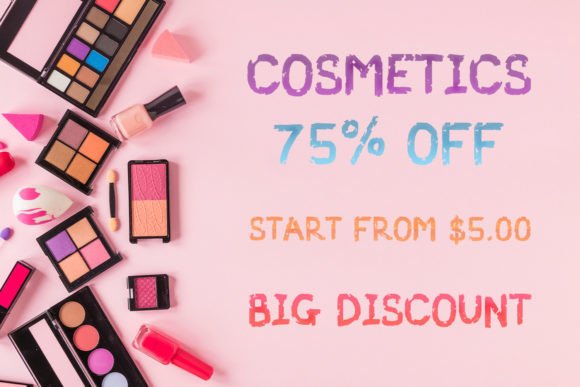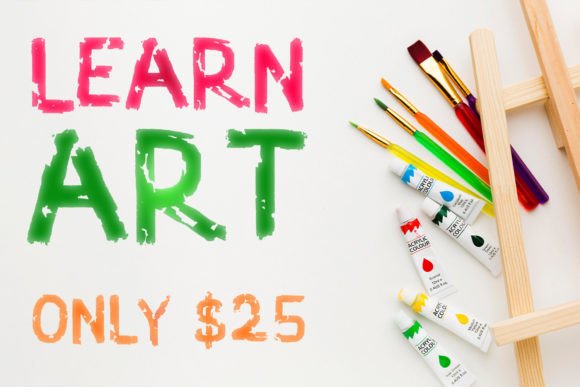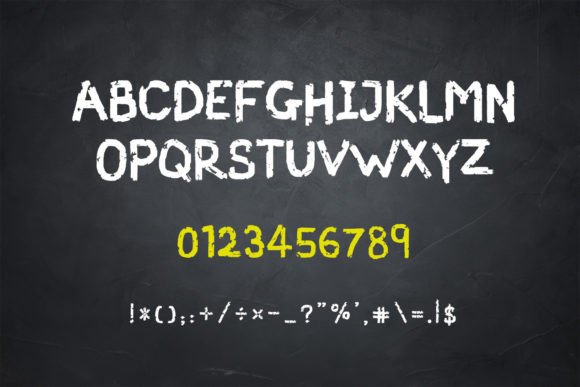
The Perfect Font for Your Creative Masterpiece
Have you ever stared at a blank canvas, waiting for the perfect font to bring your design to life? The blank page can be intimidating, but what if I told you there’s a font that can add a touch of modernity and friendliness to your next project? Say hello to the Acrylic Font, a game-changing display font that’s about to become your new go-to.
This versatile font is perfect for headings, blogs, logos, branding, business cards, and much more. Its rough yet friendly aesthetic makes it a valuable asset for designers looking to add a personal touch to their work. Whether you’re a seasoned pro or a budding designer, the Acrylic Font is sure to inspire your creativity and take your designs to the next level.
Acrylic Font Key Features
- Unique Characteristics: Features a unique blend of modern and vintage elements, with intricate details and subtle textures that evoke a sense of elegance and sophistication.
Designer Review: Acrylic Font
Overall, I think Acrylic Font is an interesting choice for designers looking to add some unique flair to their projects. Here are some of its strengths: ✨
- Unconventional yet elegant design: Acrylic Font’s blend of modern and futuristic elements makes it a great choice for projects that need to stand out.
- Good legibility: While it’s not the most readable font, Acrylic Font does a decent job of conveying its message, especially in short text blocks.
However, there are some limitations to consider: ⚠️
- Limited font sizes: Acrylic Font looks best at larger font sizes (18pt or higher). At smaller sizes, it can become difficult to read.
- No bold or italic variants: This font only comes in regular weight, which can limit its versatility.
- Slightly inconsistent spacing: Acrylic Font’s spacing can be a bit inconsistent, especially in longer text blocks.
Overall, I’d say Acrylic Font is a great choice for designers who want to add a touch of uniqueness to their projects, but it may not be the best option for projects that require high readability or flexibility.
Acrylic Font: A Practical Application Guide
The Acrylic Font is ideal for creating modern, eye-catching designs for:
– Social media graphics
– Marketing materials
– Digital signage
– Branding and logo design
Experiment with different font sizes, colors, and styles to achieve a unique acrylic effect.
– Use layer blending modes and opacity settings to create depth and dimension.
– Combine the Acrylic Font with other design elements, such as images and shapes, to create visually appealing compositions.